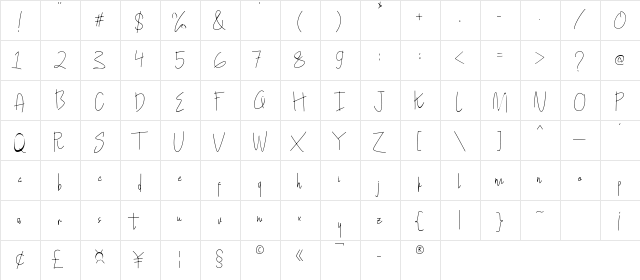
Hollen amare script script
| Style | script |
| Designer | GlyphStyle 2019 |
Design Context for Hollen amare script Typeface
Hollen amare script flows with the natural rhythm of handwritten lettering, making it ideal for designs that call for warmth and personal expression.